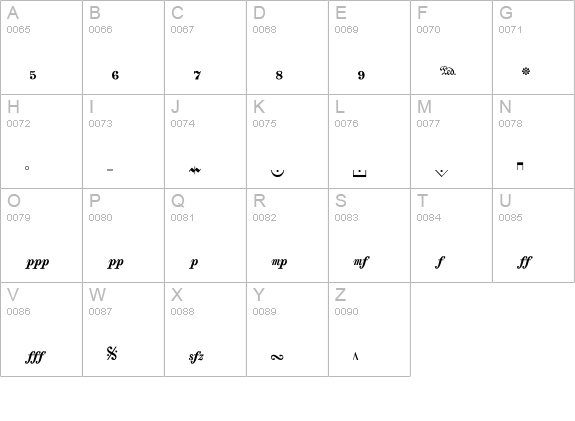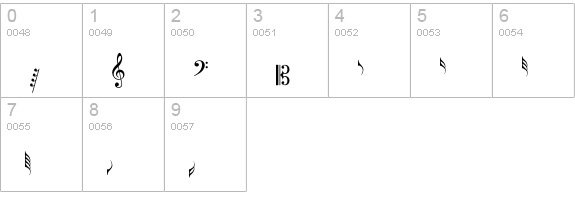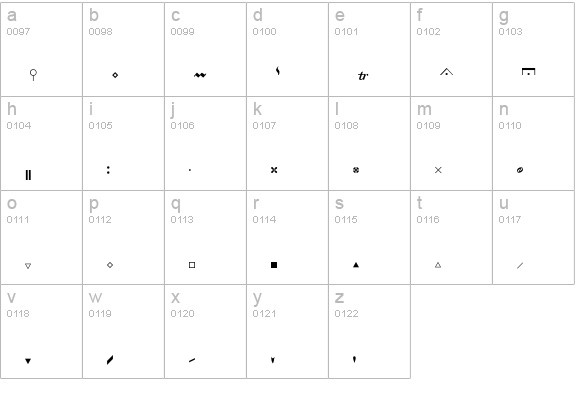
Cubase Font Details
The Cubase font is a sleek and modern typeface that exudes sophistication and professionalism. Its clean lines and elegant curves make it perfect for a wide range of design projects, from logos to branding materials to digital art. The versatility of the Cubase font means that it can easily adapt to any style or theme, making it a valuable addition to any designer's toolkit. Best of all, this stylish font is available for free download at FontsMarket.com, allowing you to elevate your designs without breaking the bank. Don't miss out on this fantastic opportunity to enhance your creative projects with the Cubase font today!